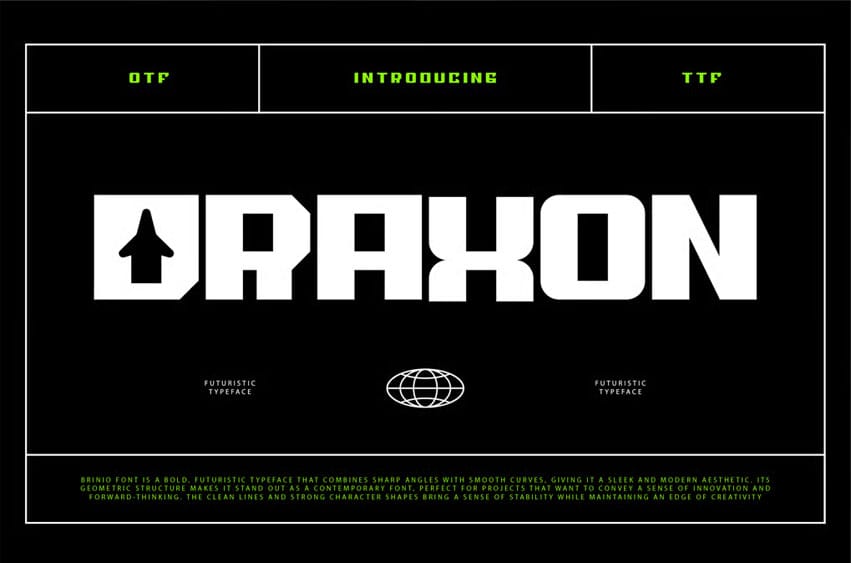
Draxon Font is a futuristic font designed with a cutting-edge, technological concept in mind.
Its sharp, angular lines and sleek, modern design give it a high-tech, almost sci-fi aesthetic, perfect for projects that focus on innovation, technology, and the future.